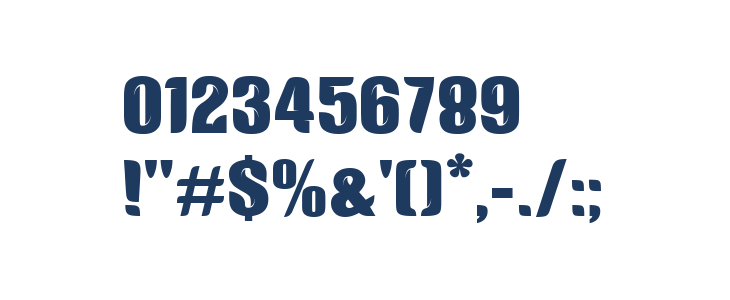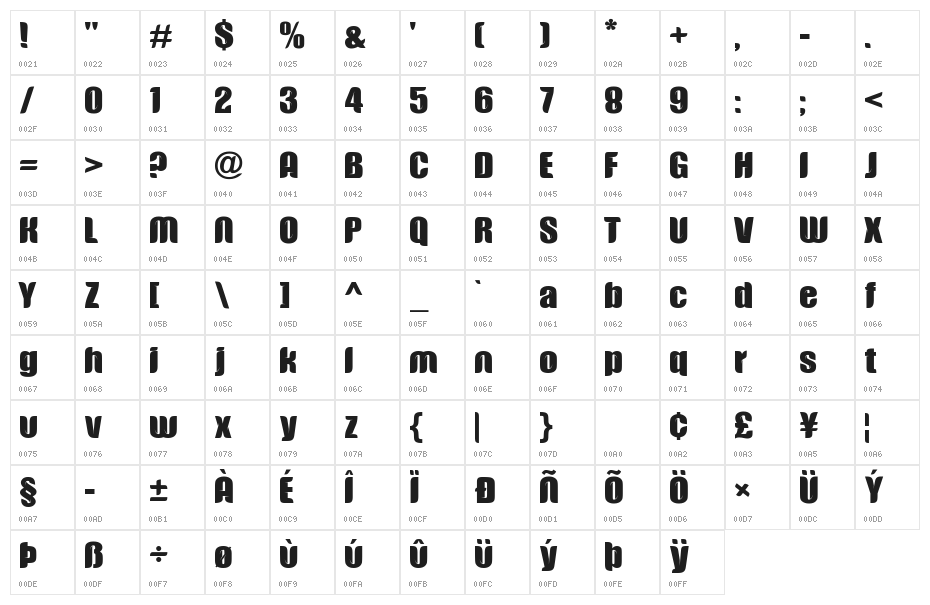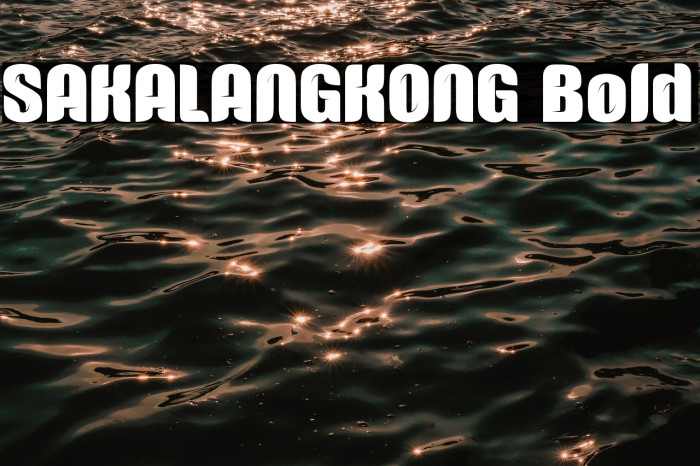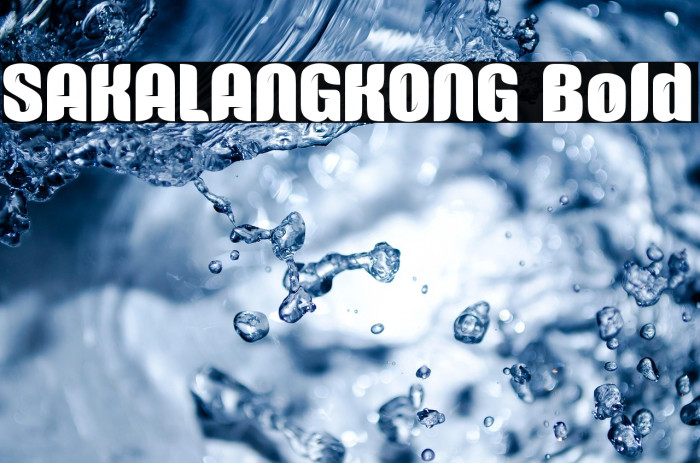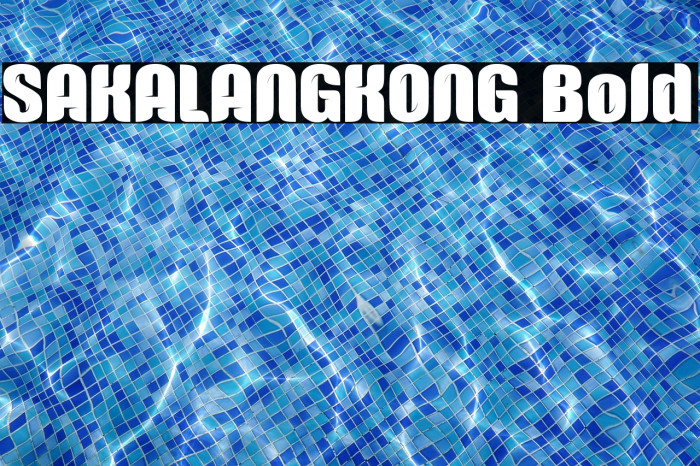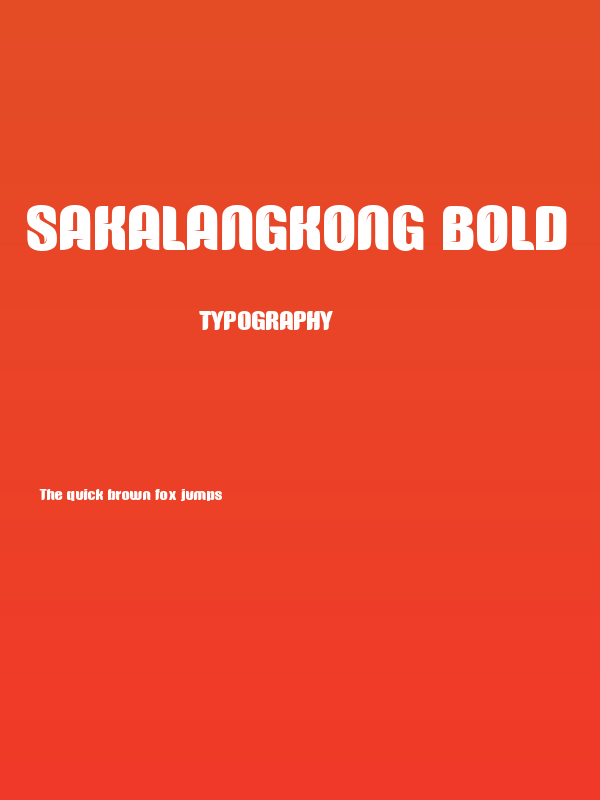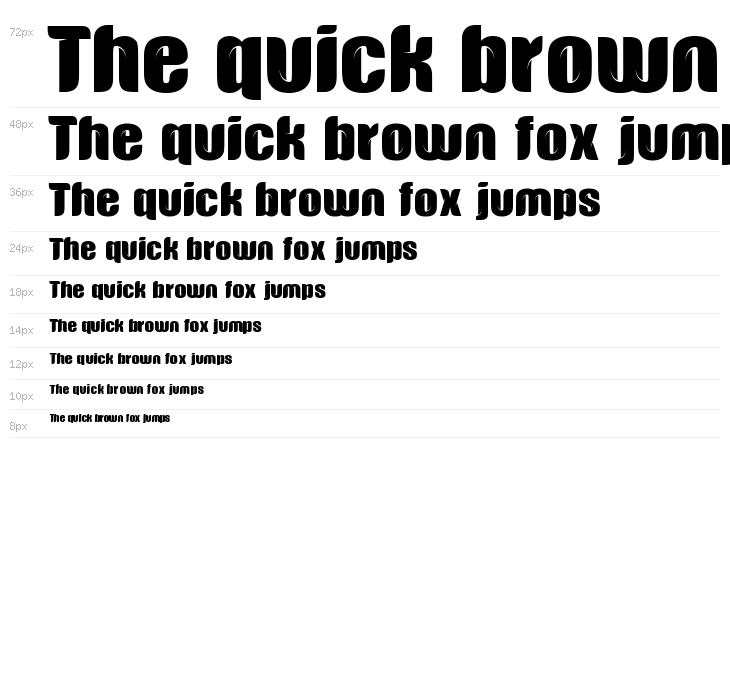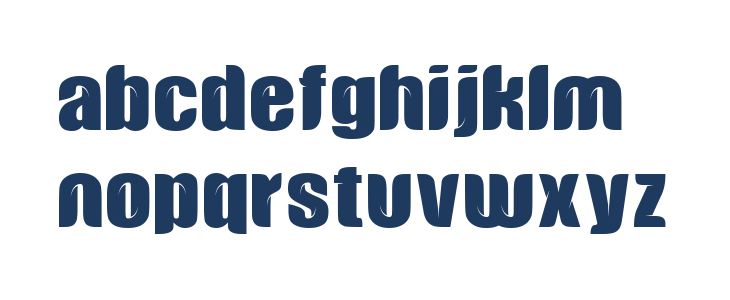
SAKALANGKONG Bold Font
SAKALANGKONG Bold Description
This font features a bold and impactful design with thick, rounded strokes that give it a strong and assertive presence. The characters are uniformly wide, creating a sense of stability and balance. The uppercase and lowercase letters maintain a consistent style, with smooth curves and a slightly condensed appearance. The numbers and special characters are designed to match the boldness of the alphabet, ensuring a cohesive look across all text. This font is ideal for making a statement, with its high visibility and modern aesthetic.